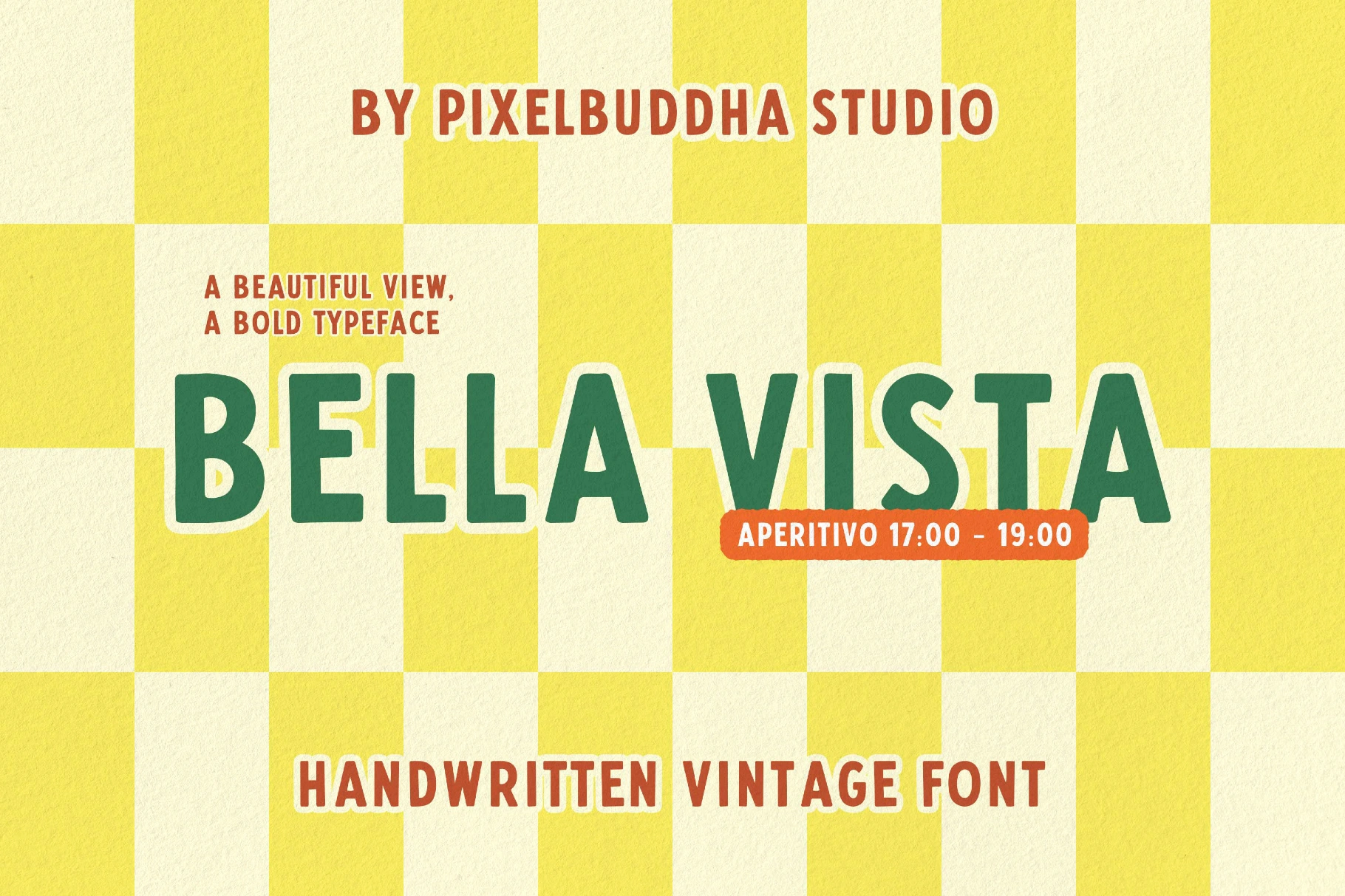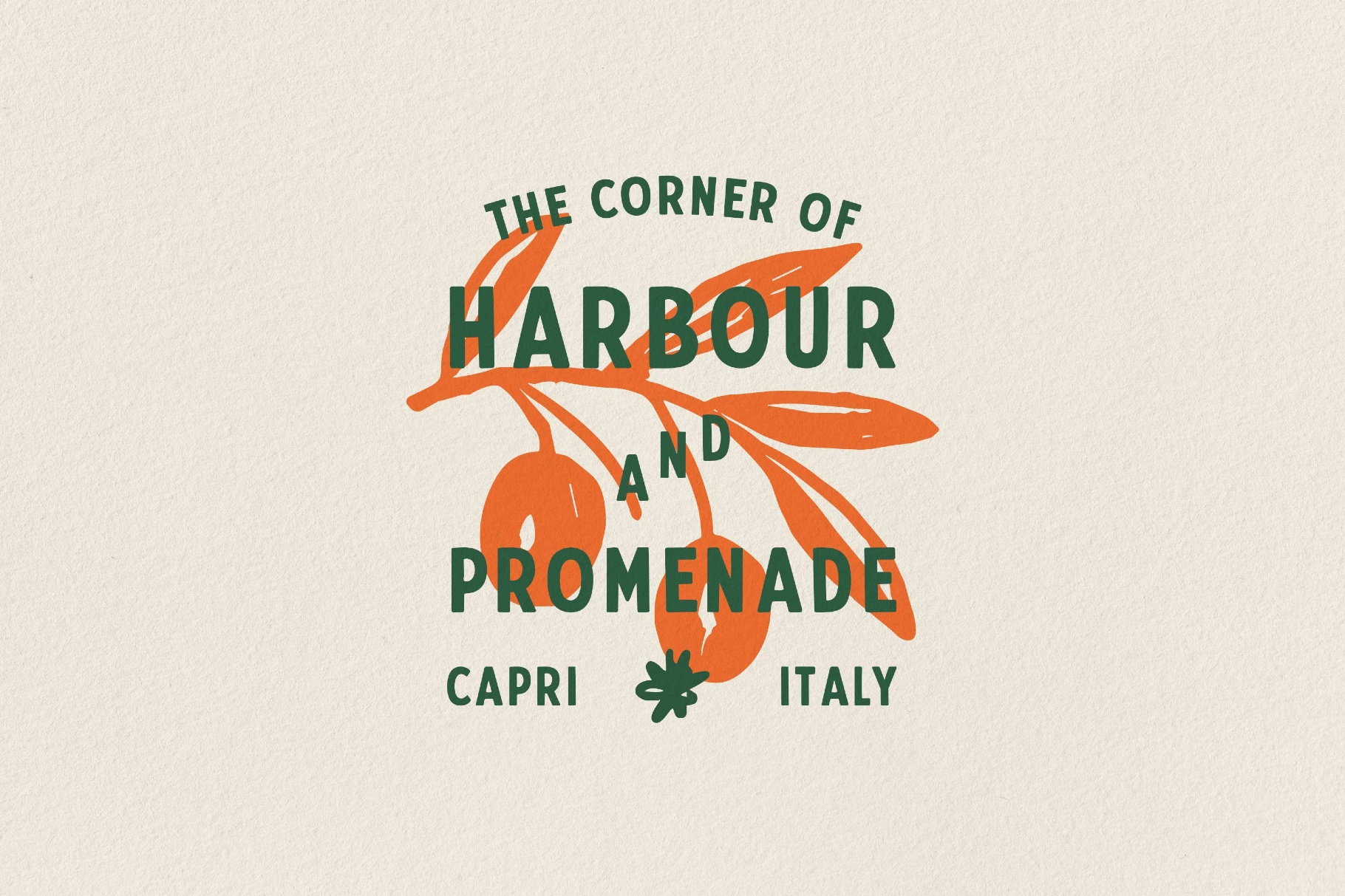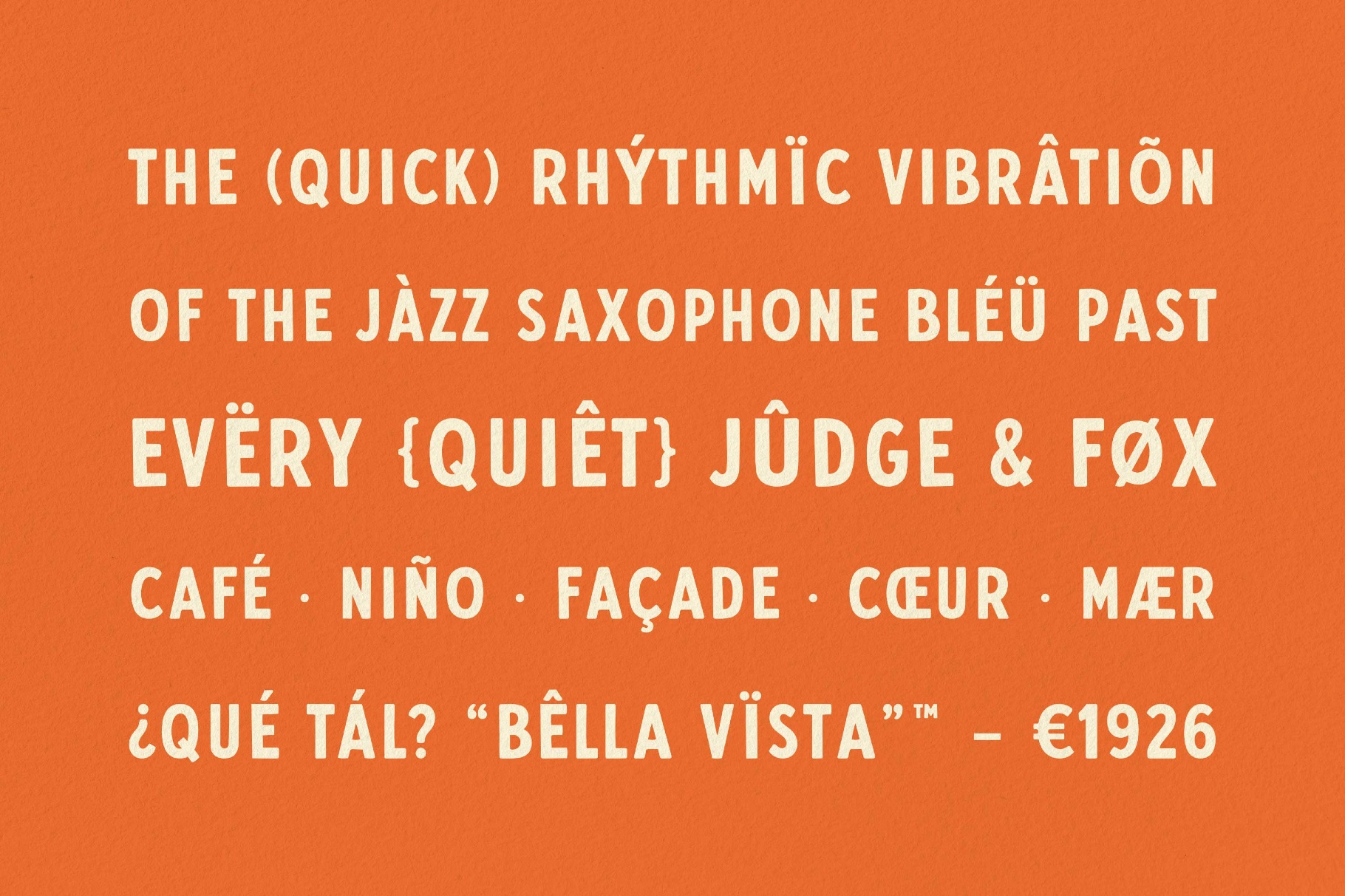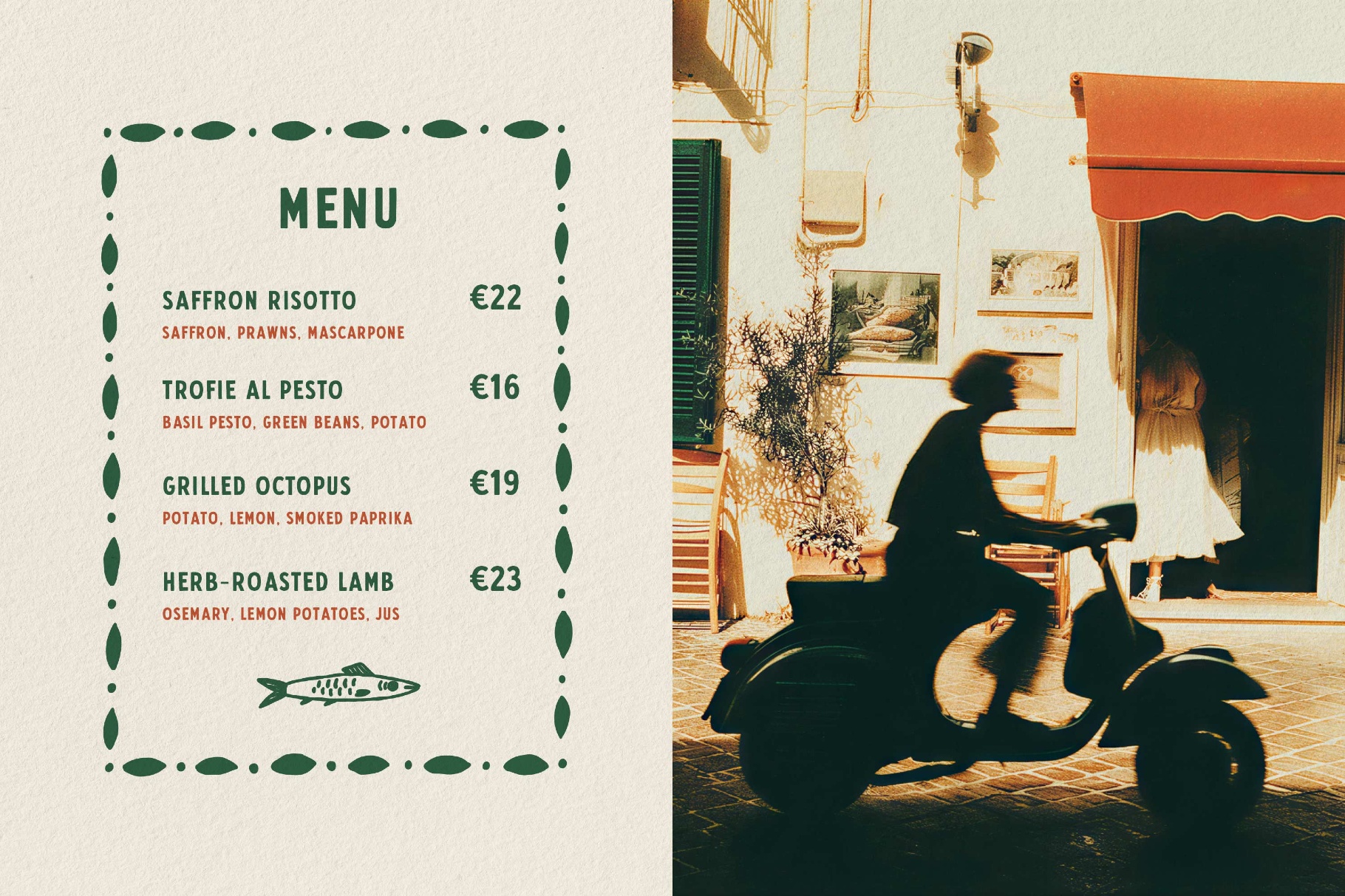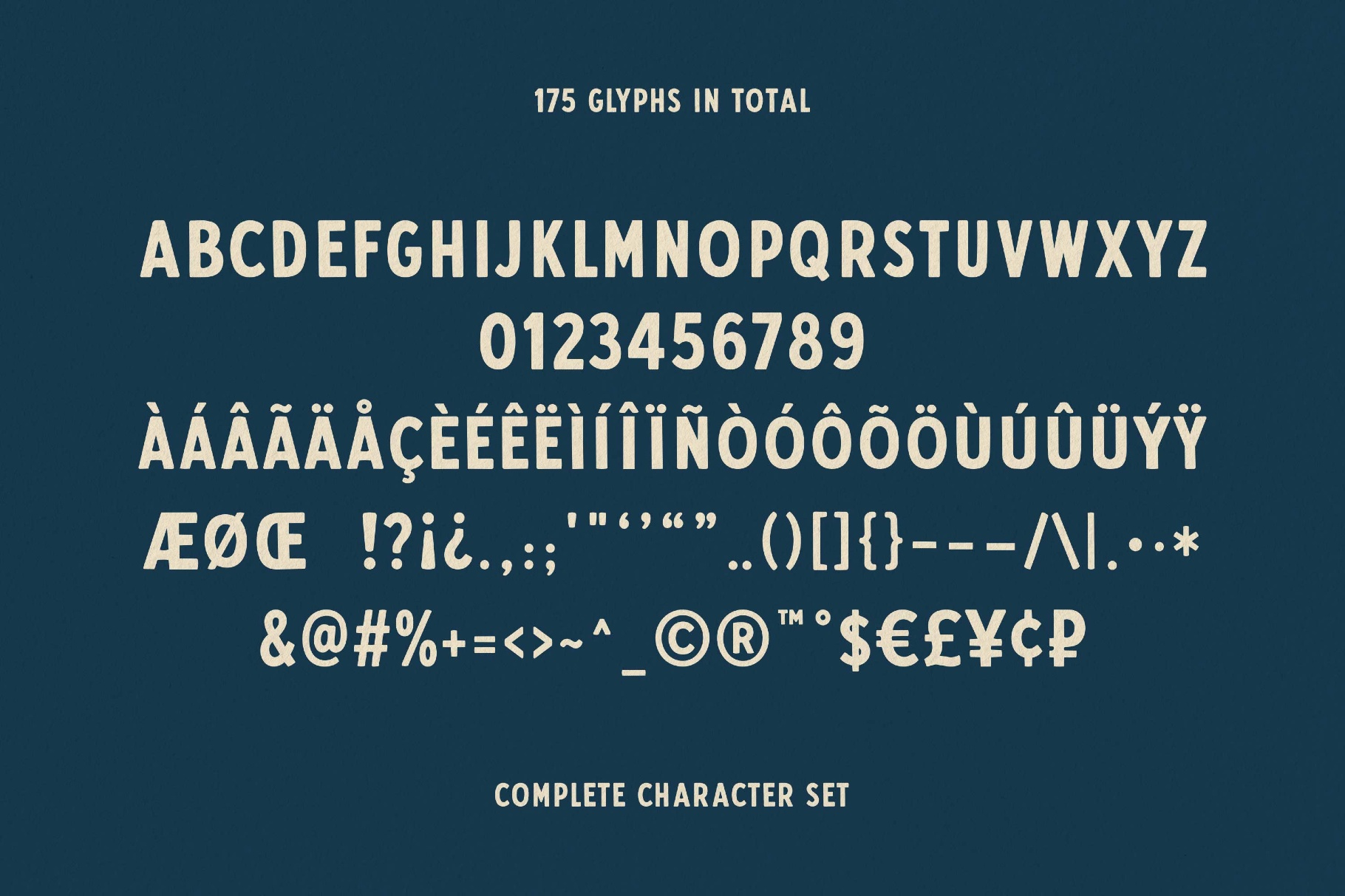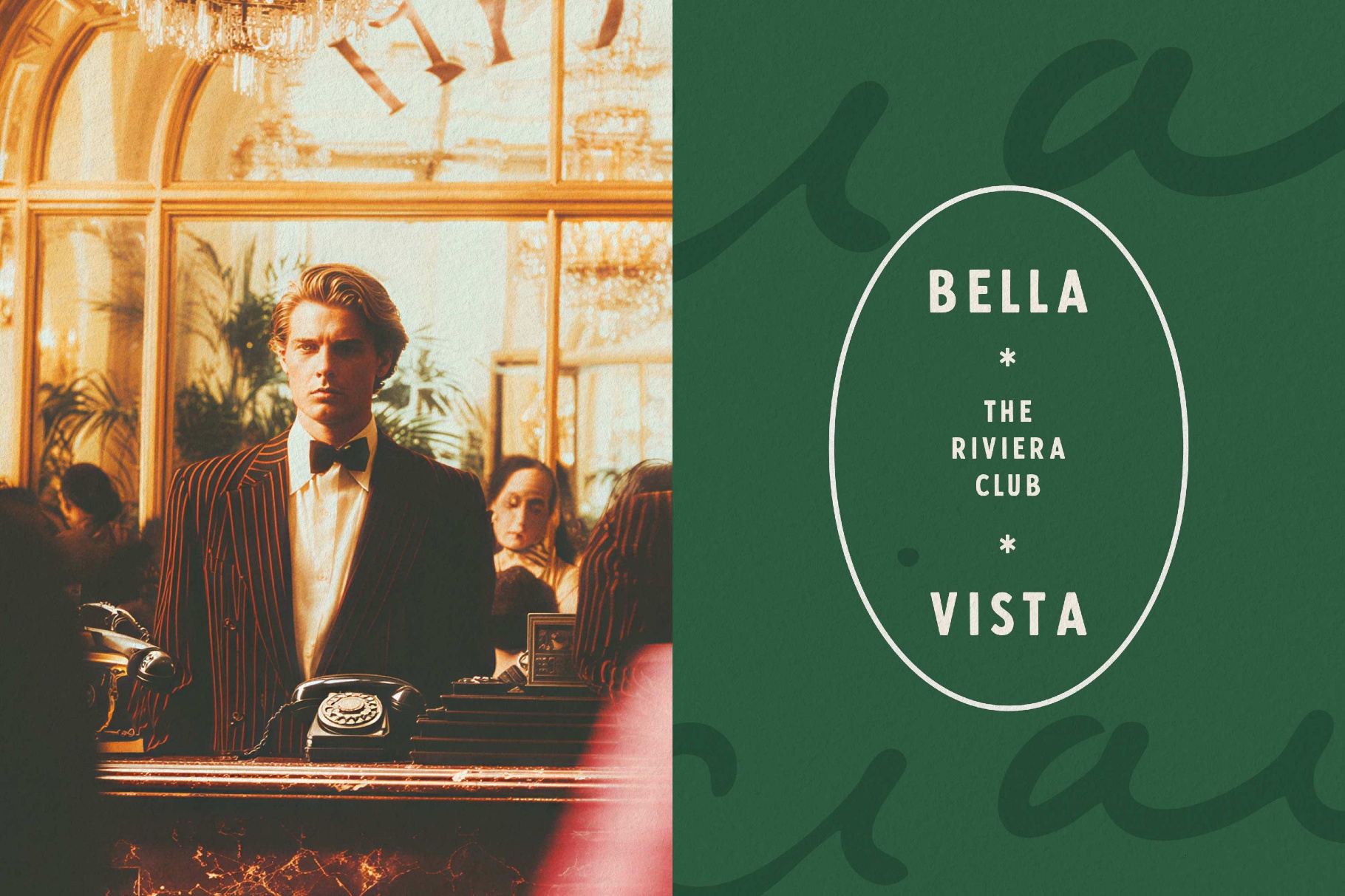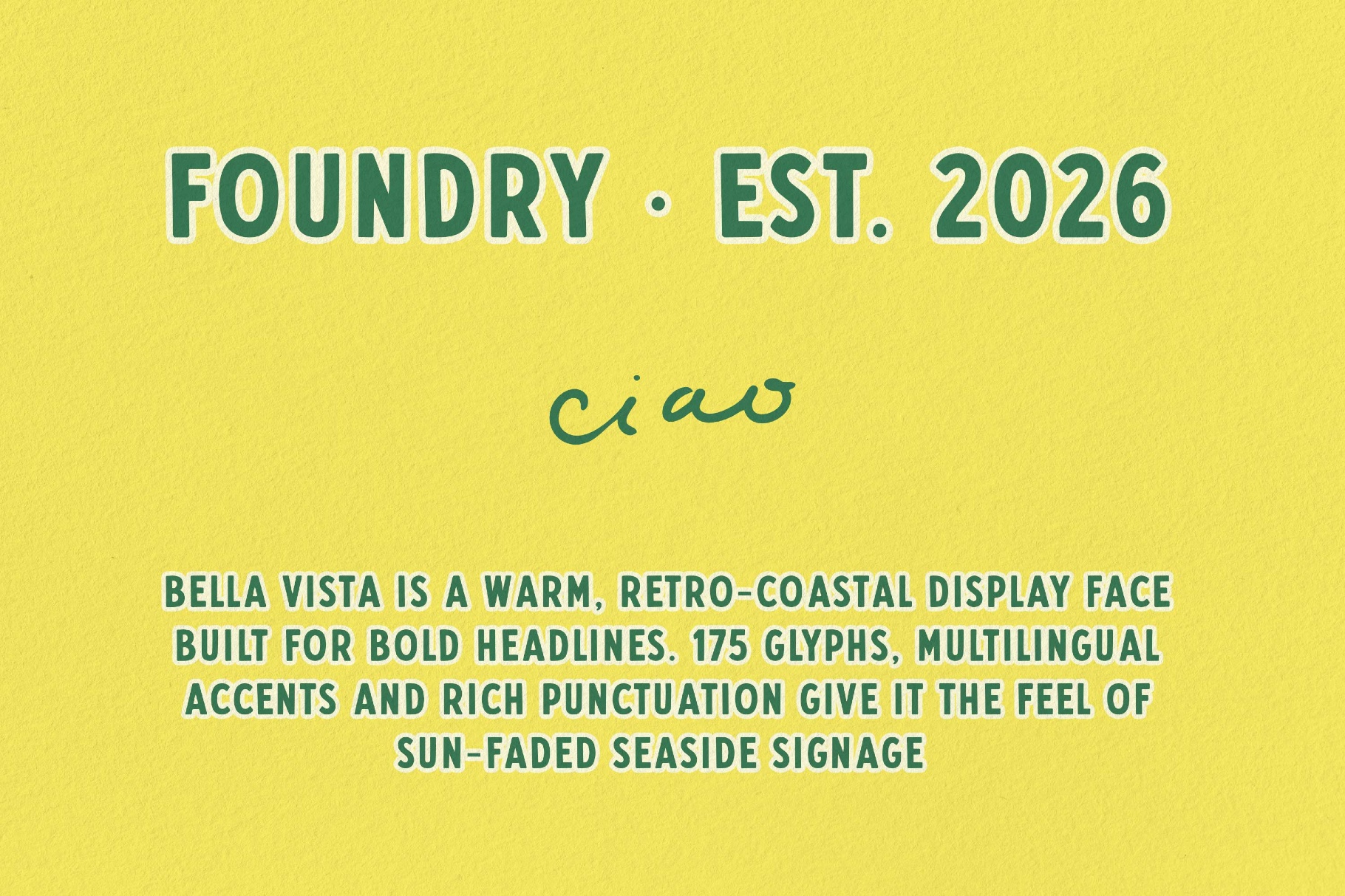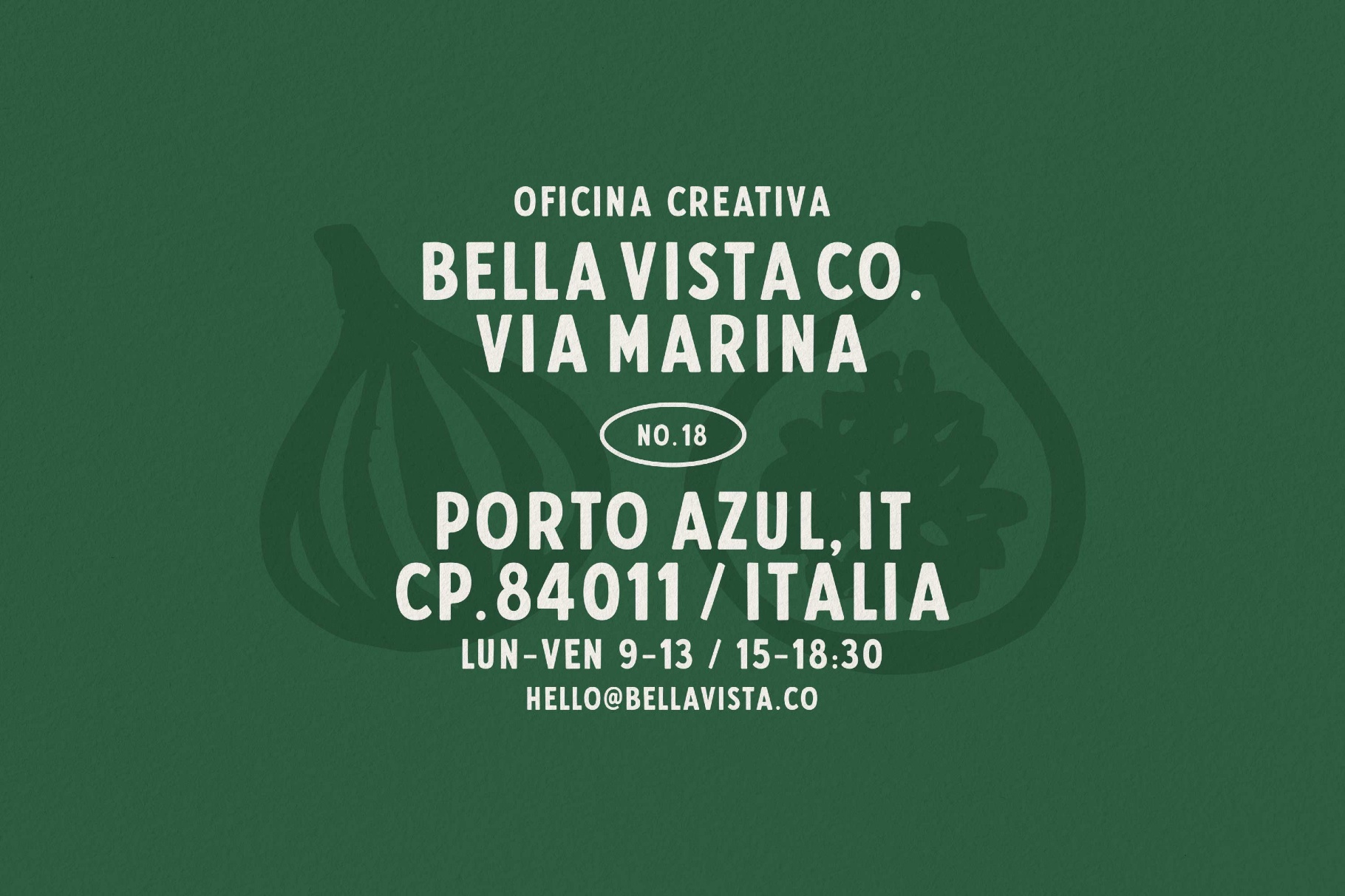
Bella Vista — Vintage Mediterranean Display
Bella Vista grew out of hand-painted seaside signage — lettering brushed straight onto trattoria windows and faded by years of Mediterranean sun. It's a bold all-caps display font with condensed proportions, rounded terminals, and the slightly uneven edges of a sign painter working fast. The heavy weight and tight spacing lock a headline together as type squeezed onto a harbor-front board.
The font is built to be read across a piazza. The character set reaches well past English, with accents for French, Italian, Spanish, German, and the Nordic languages, plus the punctuation and currency marks a working menu or label actually needs.
• uppercase A–Z (lowercase keys repeat the capitals);
• numerals, punctuation & symbols;
• accented characters for Western European and Nordic languages;
• currency & reference marks (€ £ ¥ ¢ ₽ © ® ™);
• 175 glyphs total;